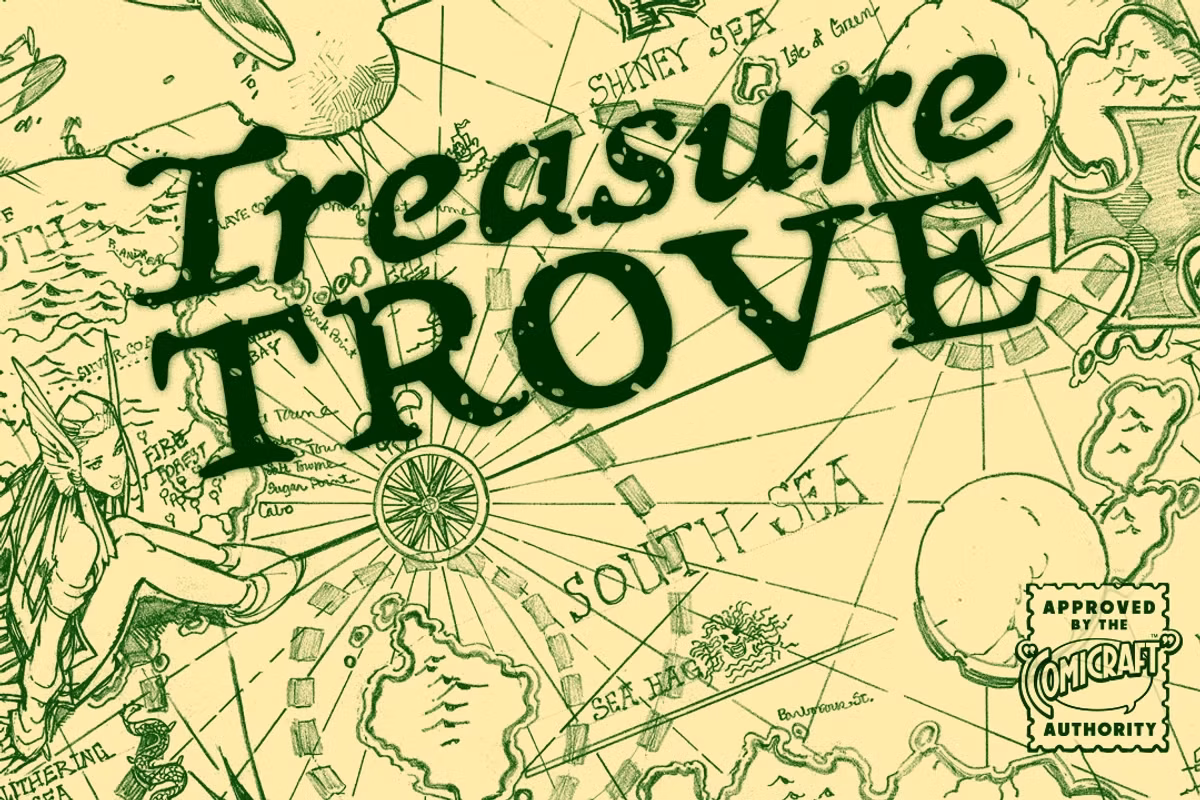
Unlock the mysteries of history with Treasure Trove - Ancient Map Font Free Download. This unique typeface takes inspiration from the bold, worn letterforms found in ancient maps and treasure documents, making it perfect for creating pirate-themed designs, vintage-inspired logos, adventure novels, and historical branding projects.
Treasure Trove features rough edges, hand-drawn strokes, and intricate details, capturing the look of maps and texts from bygone eras. It includes uppercase and lowercase letters, numerals, punctuation, and decorative flourishes, ideal for adding an antique touch to your creative projects.